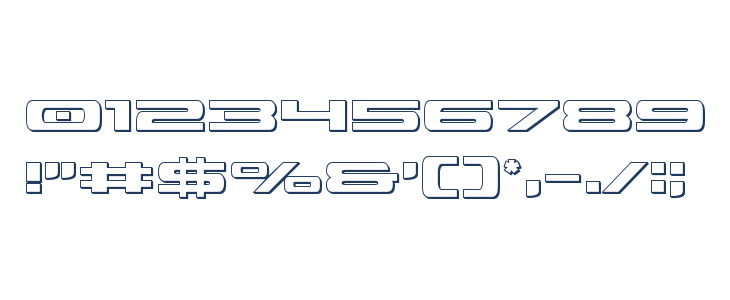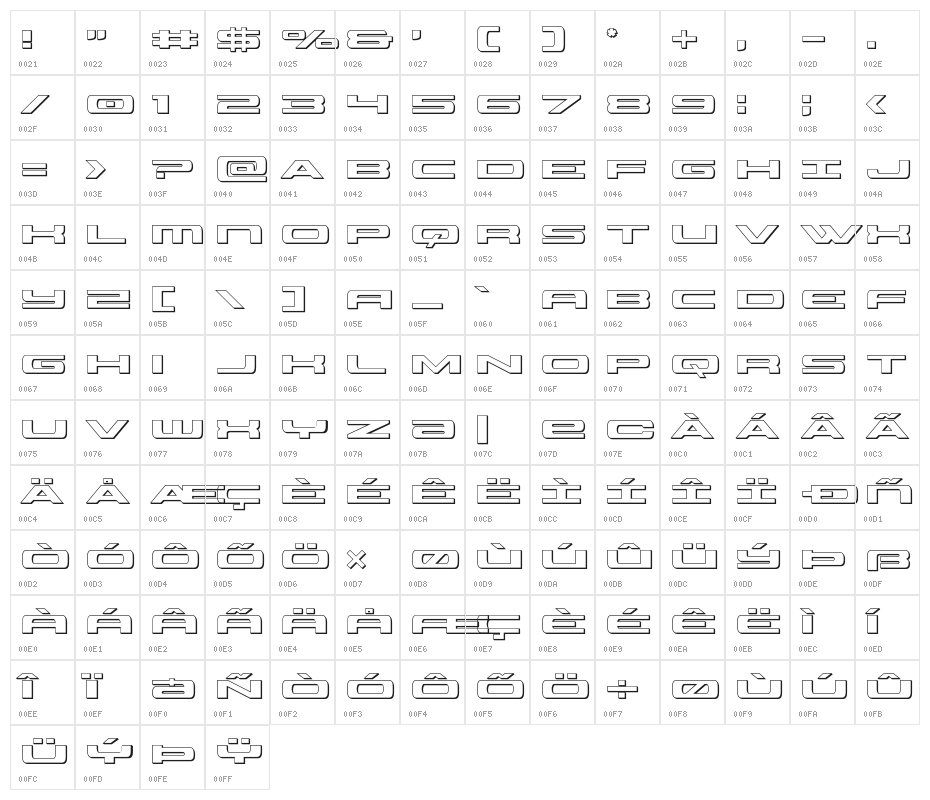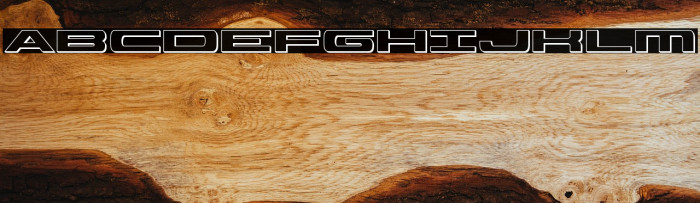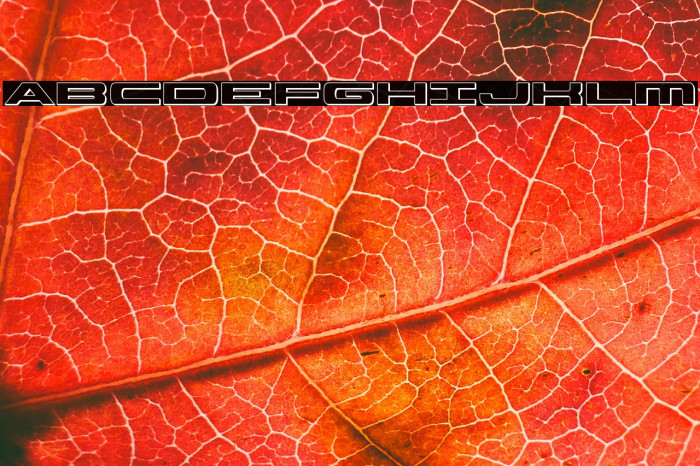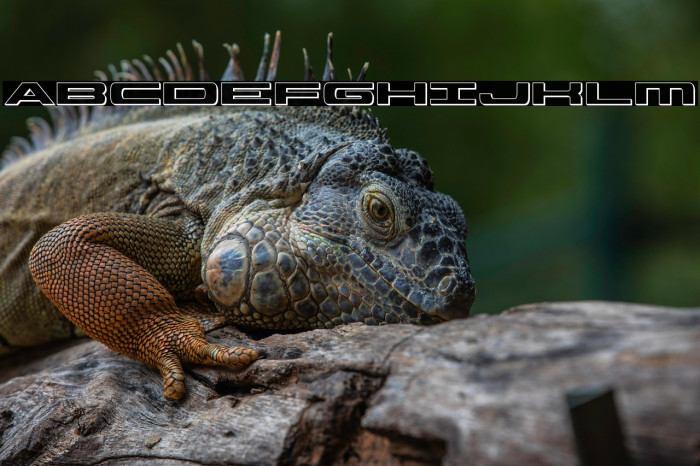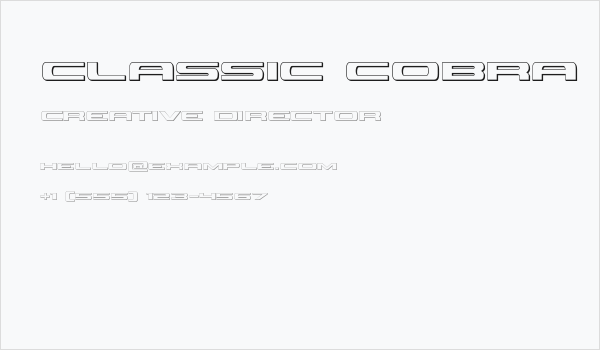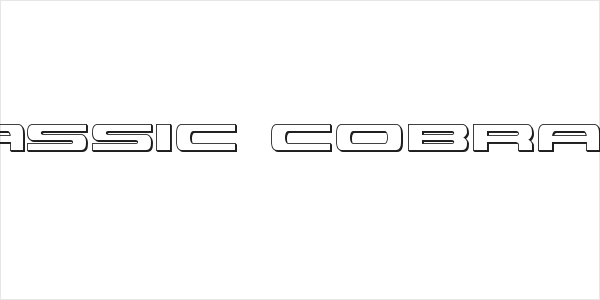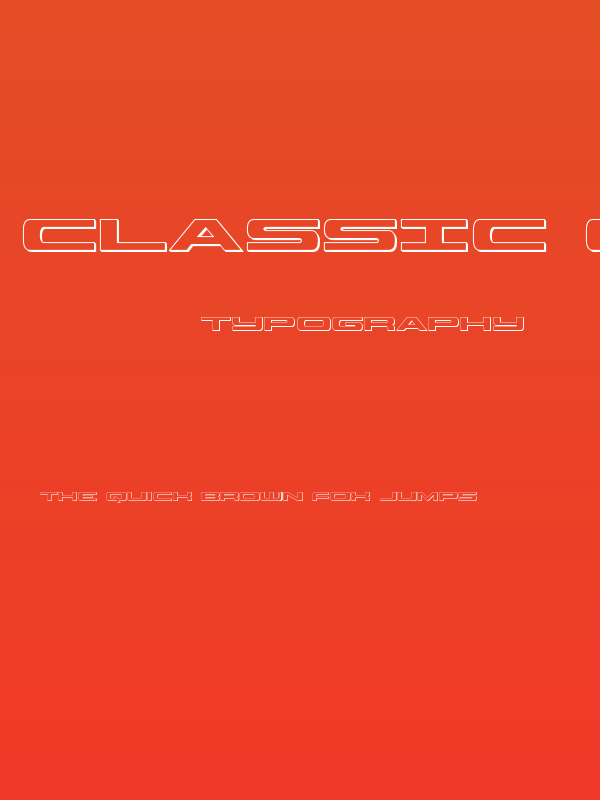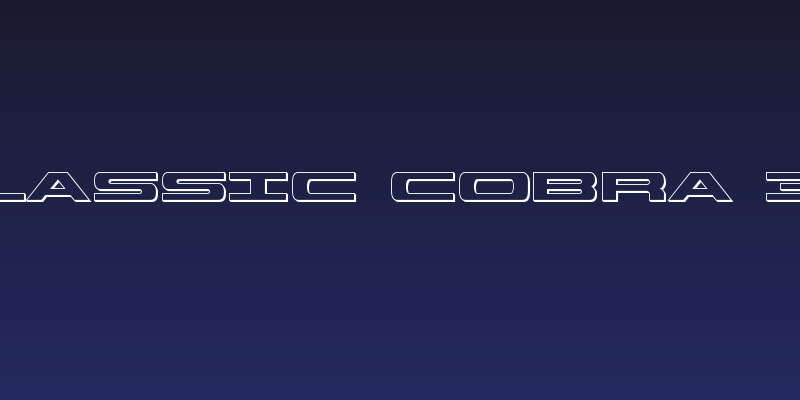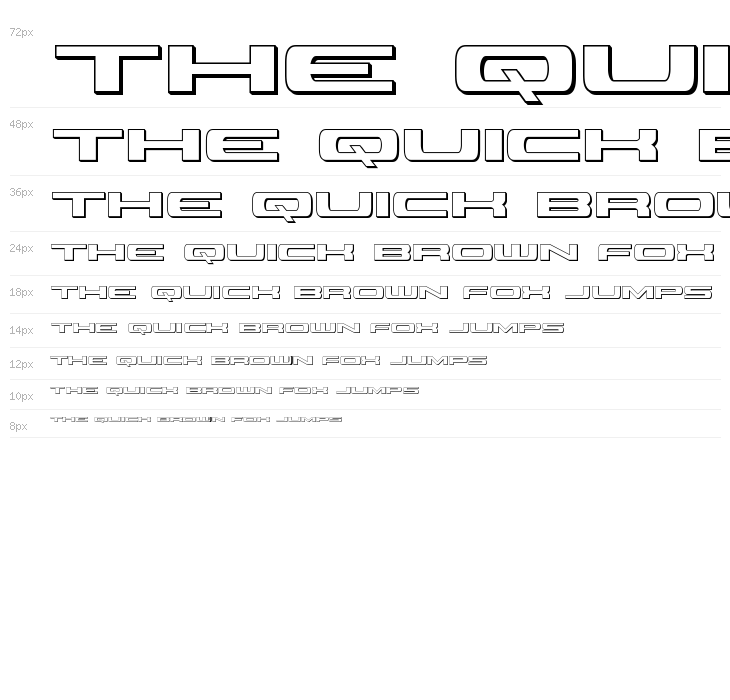
Classic Cobra 3D Font
Classic Cobra 3D Description
This font features a bold, geometric design with a 3D effect that gives it a modern and futuristic appearance. The characters are outlined, creating a hollow effect that enhances the dimensionality. The uppercase and lowercase letters maintain a consistent style, with sharp angles and clean lines. The numerals and special characters follow the same aesthetic, ensuring uniformity across all glyphs. This font is ideal for projects that require a strong visual impact, such as branding, posters, or digital media.
| Proposed Projects | Ideal for branding, posters, digital media, and any project needing a strong visual impact. |